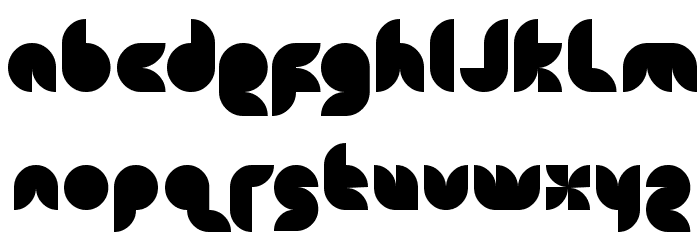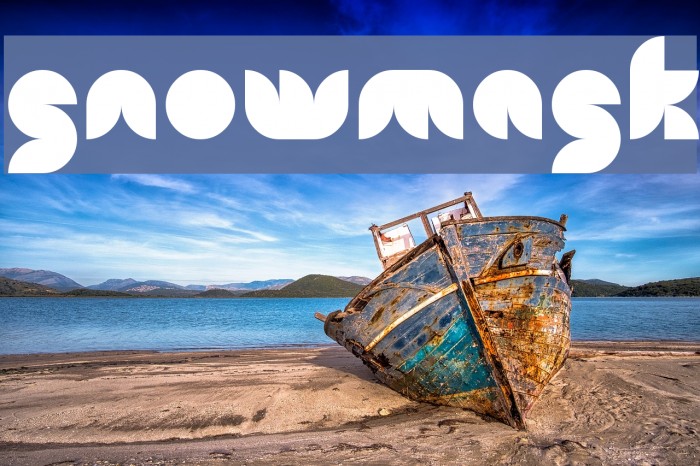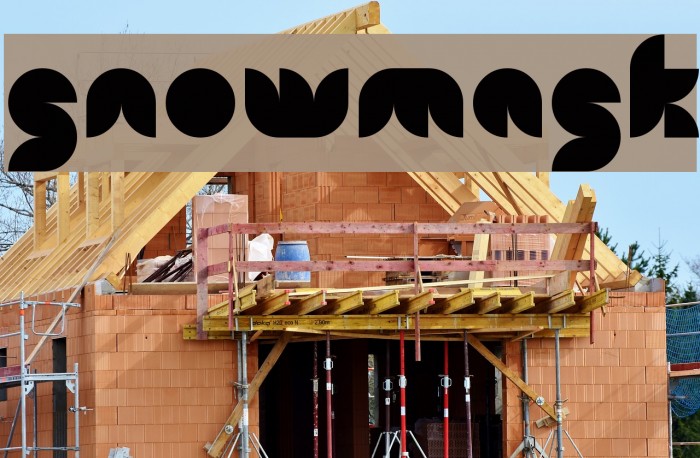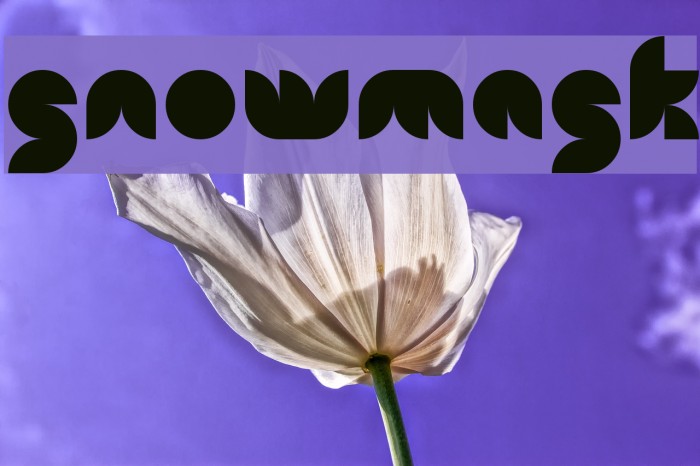
snowmask Font
This font features a bold, geometric style with a distinctly modern flair. The characters are composed of thick, rounded shapes that create a sense of cohesion and unity. Each letter is crafted with a unique combination of curves and angles, giving the font a playful yet structured appearance. The absence of sharp edges and the consistent use of circular forms contribute to its friendly and approachable aesthetic. This font is well-suited for projects that require a strong visual impact, such as branding, posters, or headlines. Its boldness ensures readability while maintaining a distinct and memorable look.
A bold, geometric font with rounded shapes and a modern, playful style.
- Proposed Projects: Ideal for branding, posters, headlines, and any project needing a strong visual impact.